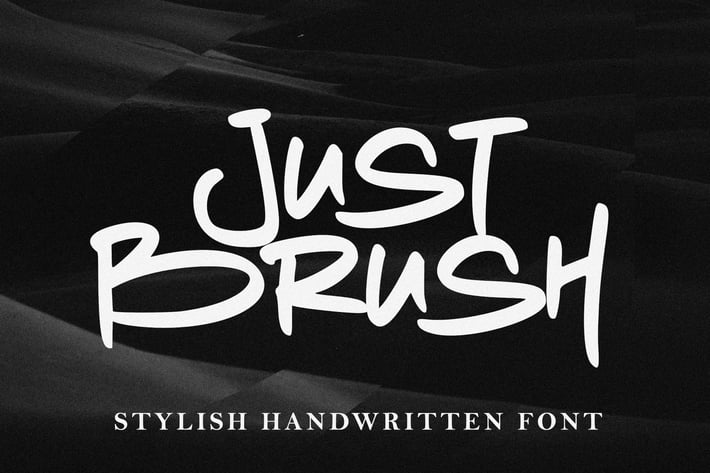
Just Brush Logotype Font
Just Brush is a refined and adaptable handwritten logotype font. Its distinct and well rounded letters make this font a work of art. Fall in love with its incredibly versatile style and use it to create fashionable designs.